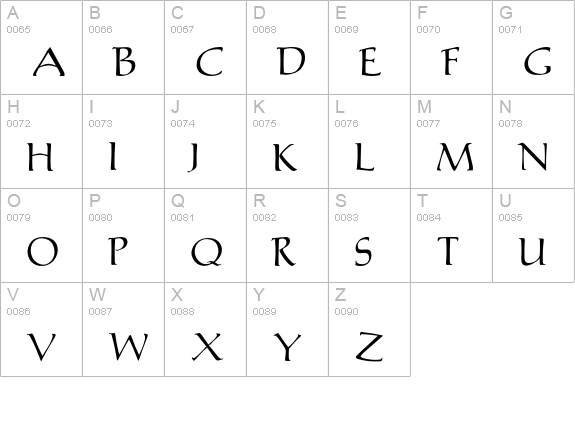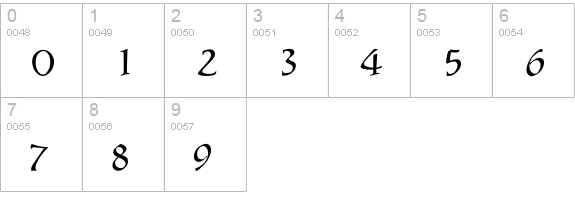
Introducing Caesar font, a timeless and elegant typeface that exudes sophistication and charm. With its refined serifs and graceful curves, this font captures the essence of classical design while adding a modern twist. Caesar font is perfect for adding a touch of nobility to your projects, whether it be invitations, branding, or editorial work. Its versatility allows it to seamlessly blend into various design styles, from vintage to contemporary. But what truly sets Caesar font apart is its availability. It is not only a stunning choice, but it is also freely accessible to all. You can easily download the Caesar font for free at FontsMarket.com, making it an excellent option for designers and creatives on a budget. With its extensive character set, Caesar font offers a plethora of options to bring your ideas to life. Whether you're looking for a bold and impactful headline or a delicate and refined script, this font has got you covered. Its legibility and readability make it suitable for both print and digital media, ensuring your message is conveyed with clarity and style. Embrace the timeless beauty and versatility of Caesar font. Download it for free at FontsMarket.com and unlock limitless possibilities for your creative endeavors. With this font in your arsenal, you'll effortlessly elevate your designs and captivate audiences with its undeniable charm.